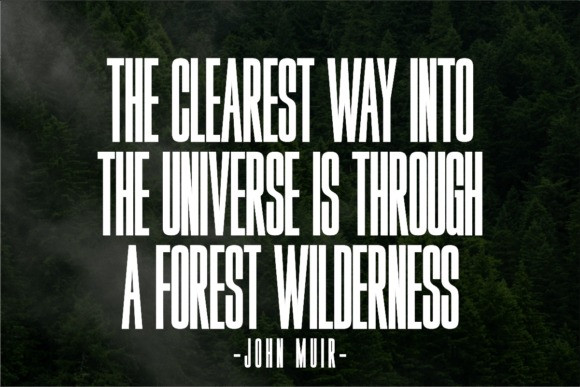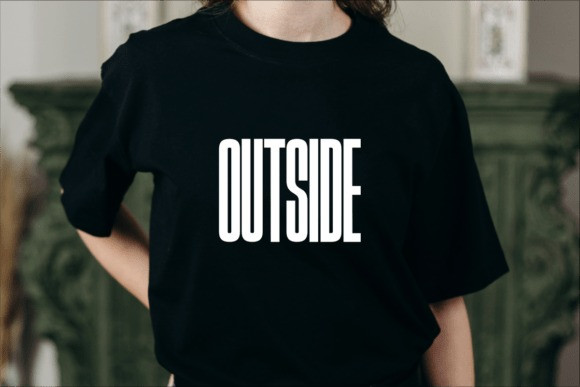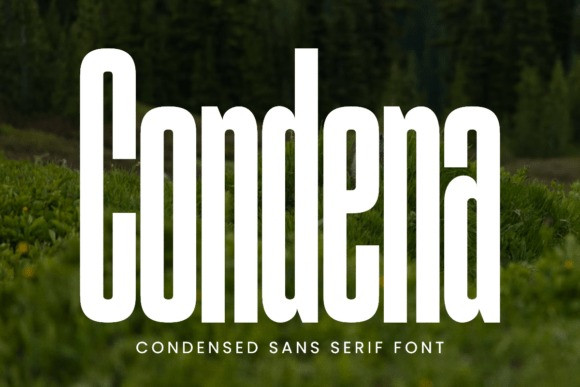
Condena Font
Condena Font is a contemporary, condensed sans serif offering that embodies sophistication and modern dynamism. The slender proportions and polished contours of each letter perfect the balance between elegance and commanding presence. At home in any setting, its slim structure excels in fashion branding, hones the edge in editorial design, and seamlessly amplifies the impact in poster arts or magazine layouts. Product packaging and minimalist logo projects too find their unique voice in the subtle charm of Condena. With an underpinning professional allure that works as stunningly on print as in the digital world, Condena is an elegant blend of style and functionality, making it a compelling choice for any design challenge.